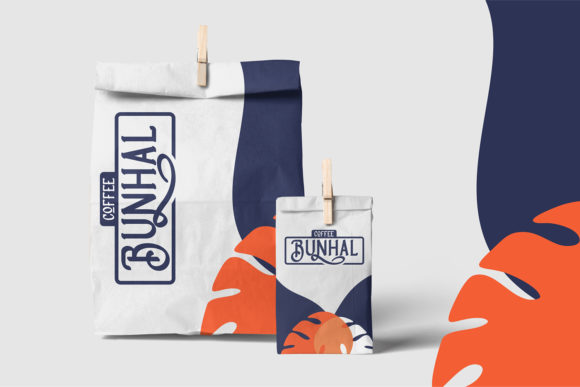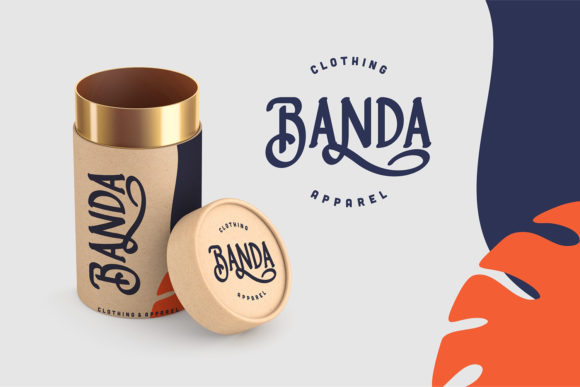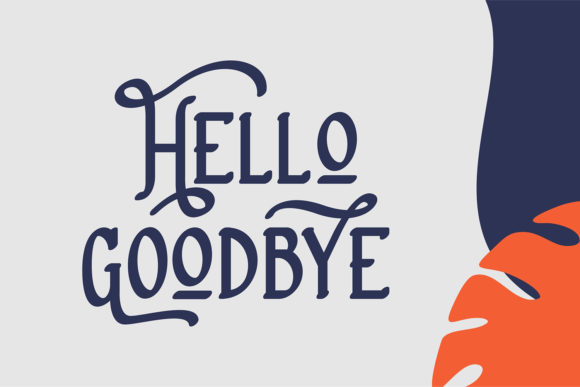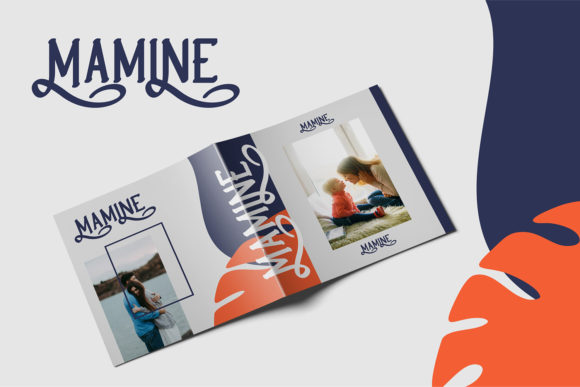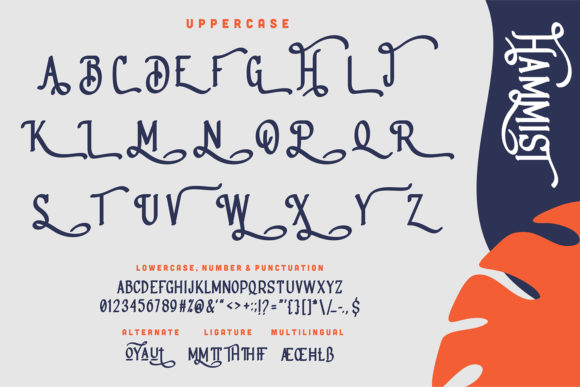
Hammist Font: Elevate Your Designs with Elegance and Versatility
Are you on the hunt for a font that exudes sophistication, elegance, and versatility? Look no further than Hammist, a stylish serif font that is sure to capture your heart. With its incredibly adaptable style, Hammist is the perfect choice for designers and crafters looking to create spectacular designs that leave a lasting impression.
The Beauty of Hammist Font
Hammist is a masterfully crafted serif font that boasts a unique blend of classic and modern elements. Its elegant lines, precise curves, and perfectly balanced proportions make it a joy to use in a wide range of design applications. Whether you’re working on a branding project, a website, or a print design, Hammist is sure to bring a touch of sophistication and refinement to your work.
Key Features of Hammist Font
- Versatile style: Hammist is designed to be incredibly versatile, making it suitable for use in a wide range of design contexts, from elegant headings to body text.
- Serif elegance: The font’s serif design adds a touch of classic sophistication to any design, while its modern twists keep it feeling fresh and contemporary.
- Highly legible: Hammist is optimized for readability, making it perfect for use in body text, captions, and other applications where clarity is key.
- Extensive character set: Hammist includes a comprehensive character set, complete with support for multiple languages and a range of special characters.
What Makes Hammist Font So Special?
So, what sets Hammist apart from other fonts on the market? Here are just a few things that make it truly special:
- Unique character: Hammist has a distinctive personality that sets it apart from other serif fonts. Its elegant lines and curves give it a sophisticated, high-end feel that is hard to replicate.
- Exceptional craftsmanship: Hammist is the result of meticulous design and attention to detail. Every aspect of the font, from the letterforms to the spacing and kerning, has been carefully crafted to ensure a seamless design experience.
- Endless design possibilities: With Hammist, the design possibilities are endless. Use it to create stunning headings, elegant body text, or eye-catching display designs – the choice is yours!
How to Use Hammist Font in Your Designs
Ready to fall in love with Hammist and start using it in your designs? Here are a few tips to get you started:
- Pair it with a sans-serif font: Hammist pairs beautifully with sans-serif fonts, creating a striking contrast that adds visual interest to your designs.
- Experiment with font sizes: Hammist is optimized for use at a wide range of font sizes, from large headings to small body text.
- Play with color and texture: Hammist looks stunning in a range of colors and textures. Experiment with different effects to add depth and interest to your designs.
In conclusion, Hammist is a stylish serif font that is sure to capture your heart. With its incredibly versatile style, elegant design, and exceptional craftsmanship, it’s the perfect choice for designers and crafters looking to create spectacular designs. So why wait? Fall in love with Hammist today and discover a world of design possibilities!